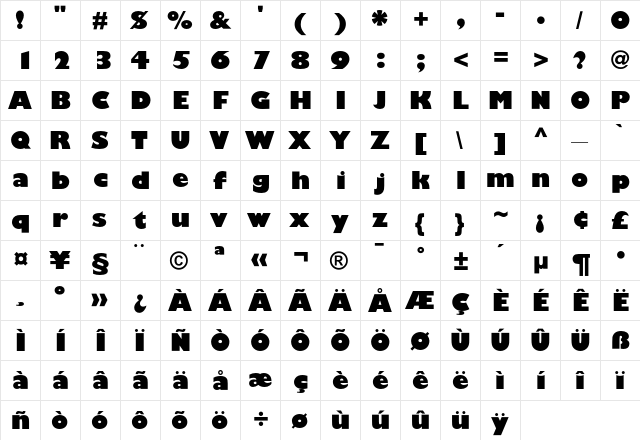
Gentle SansUltraBold
Design Context for Gentle Typeface
Gentle takes a measured approach to typography — its balanced proportions and neutral character make it a reliable workhorse for both digital and print work. The heavy weight commands attention and anchors typographic hierarchies.